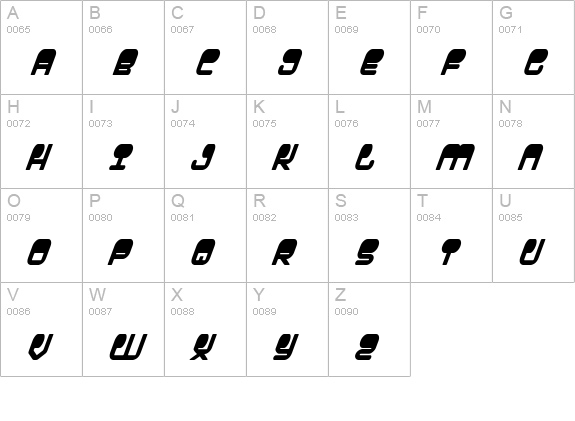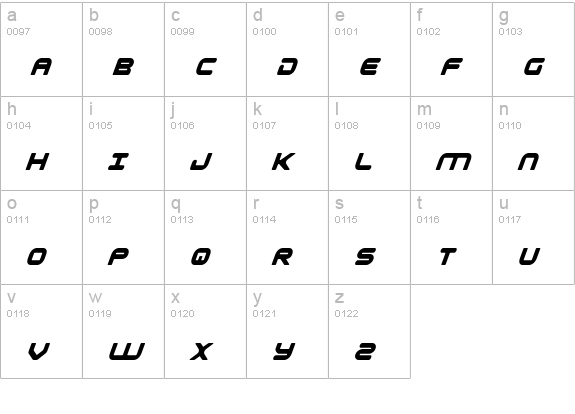
HYPNO Agent Condensed Italic is a distinctive, condensed-width, italic variant in the HYPNO typeface family \xE2\x80\x94 well suited to design and typography projects.
Discover the sleek and sophisticated elegance of HYPNO Agent Condensed Italic font, a versatile typeface that exudes a sense of modernity and professionalism. Its italicized design adds a touch of flair and personality to any project, making it the perfect choice for branding, editorial design, and more. What sets HYPNO Agent Condensed Italic font apart is its ability to effortlessly blend into various design contexts while still standing out with its unique charm. Whether you're creating a logo, a poster, or a website, this font is sure to make a lasting impression on your audience. Best of all, HYPNO Agent Condensed Italic font is available for free download at FontsMarket.com, making it easily accessible for designers and creatives looking to elevate their work with a touch of sophistication. Don't miss out on the opportunity to add this stunning font to your collection today!